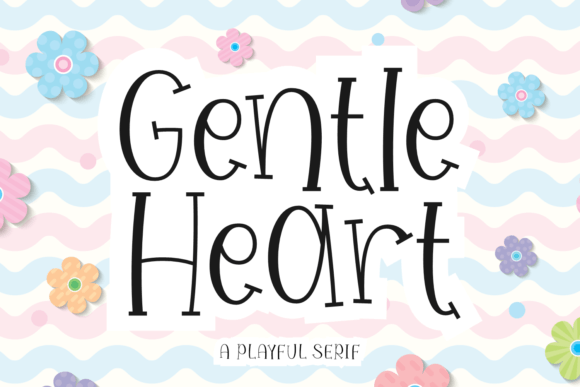
Welcome to the realm of Gentle Heart, where elegance and charm dance gracefully upon the page. This enchanting serif font, lovingly crafted by Damai of 7NTypes, is the very essence of whimsy and playfulness. As you weave your words with Gentle Heart, you'll find yourself immersed in a world of captivating designs, where invitations and greeting cards blossom with warmth and an irresistible touch of personality.
Each letter, born from the delicate strokes of a skilled hand, exudes a delightful charm that will captivate the hearts of all who behold it. Its serifs, seemingly drawn by the gentle touch of a calligrapher's quill, lend an air of timeless sophistication to your creations. Whether you seek to craft a heartfelt wedding invitation that reflects the joy of your union or a warm greeting card that conveys your love and affection, Gentle Heart is your perfect companion.
With Gentle Heart, the boundaries of creativity dissolve, giving way to endless possibilities. Its captivating handwritten style breathes life into your text, transforming ordinary words into extraordinary expressions of your emotions. Weddings, birthdays, anniversaries – every special occasion deserves the touch of Gentle Heart, where memories are etched in a font that speaks volumes about the love and happiness you share.
But Gentle Heart's allure extends far beyond the realm of personal celebrations. Its versatility knows no bounds, making it an ideal choice for branding, logos, packaging, and any design that craves a touch of warmth and charm. Imagine your brand's message adorned with the graceful curves of Gentle Heart, inviting customers to embark on a journey of timeless elegance.
The Gentle Heart font is the perfect addition to any designer's toolkit, a font that will add a touch of magic to every project you undertake. Its playful spirit and endearing handwritten style will capture the hearts of all who lay eyes upon it, leaving an everlasting impression that will be cherished for years to come.